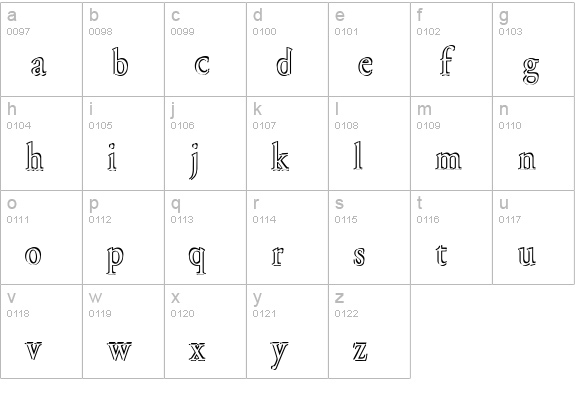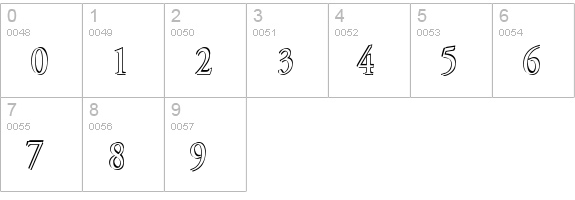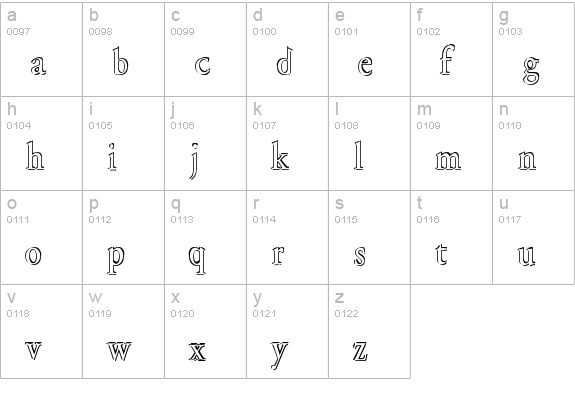
Overlapserif is a versatile and modern typeface that perfectly blends elegance with a touch of playfulness. Its unique overlapping serifs add a distinctive flair to any design, making it ideal for a wide range of projects, from branding to editorial layouts. The clean lines and balanced proportions of Overlapserif make it easy to read, while still managing to catch the eye and stand out from the crowd. What makes Overlapserif even more appealing is that it is available for free download at FontsMarket.com. This means that you can easily access this dynamic font and incorporate it into your projects without any additional cost. Whether you're a seasoned designer looking to add a fresh element to your work or a newcomer exploring the world of typography, Overlapserif is a must-have font that will help you make a bold statement in your designs. Download it today and let your creativity flow with this stunning typeface.